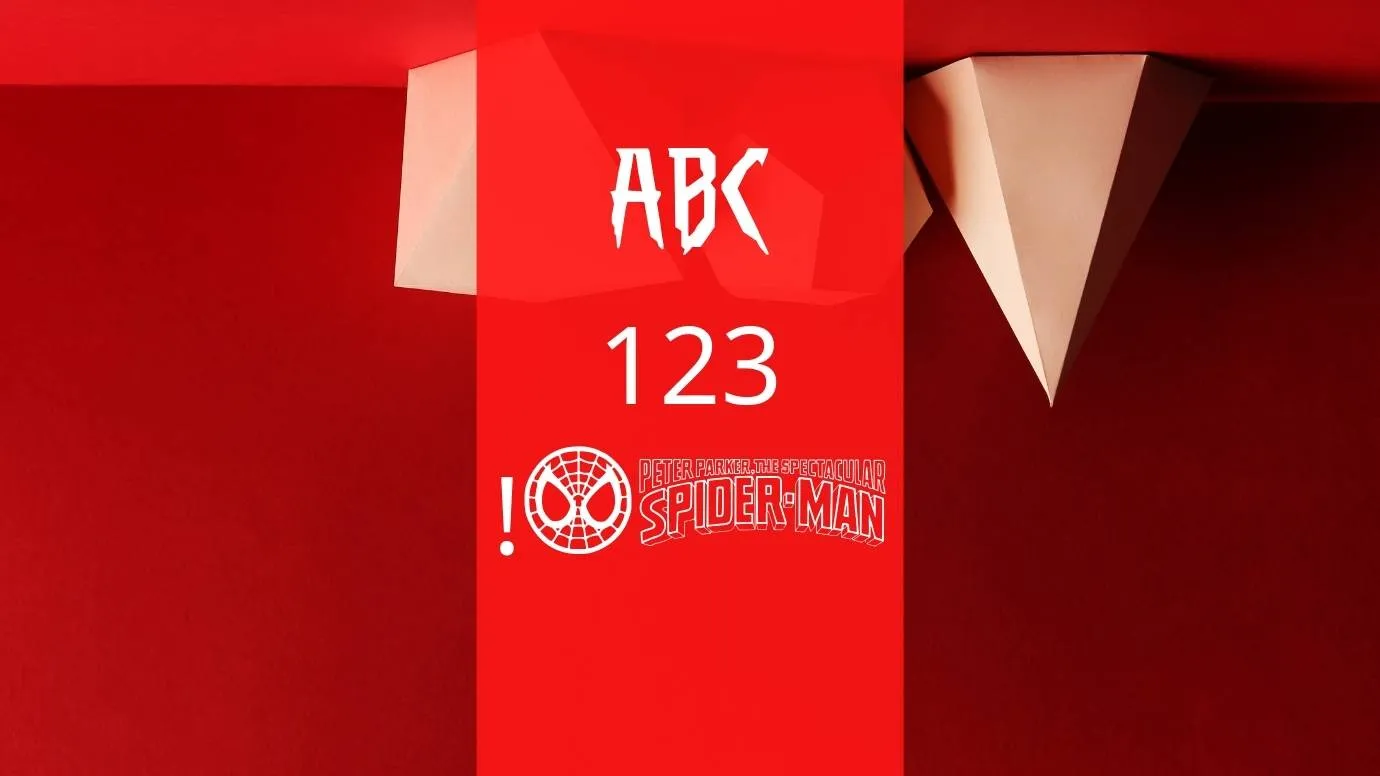
The Amazing Spider-Man Font is a group member of the fancy typeface family, the style of this texture is comic. This is a typeface that was originally created for the Amazing Spider-Man comic book. The font has been used in various other media, including video games, movies, and TV shows.
This typeface is a custom typeface that was designed by Marvel Comics artist SpideRaYsfoNtS. The font is based on the hand-lettering that is used in the comics.
The font has a high level of detail and includes various unique features, including flared ascenders and descenders, and ornate capitals. The font is available in a regular weight.
It is a popular choice for comic book-themed designs and is often used in logos, titles, and other graphic elements. A similar font of this typeface is Questrial Font.
This typeface is commonly used in comic book-themed designs, but can also be used in a range of other projects. Some potential uses include:
- Logo designs
- Titles and headings
- Product packaging
- Web graphics
- T-shirt designs
Designer of The Amazing Spider-Man Font
This unique style of texture is designed by one of the famous designers which are known, SpideRaYsfoNtS.
This typeface is released in a regular style of font, this regular style of font consists of glyphs, digits, capital letters, small letters, punctuation, a set of characters, and a wide number of languages supports.
What type of font is The Amazing Spider-Man Font?
This typeface is a group member of the fancy typeface family, the style of this texture is comic. This is a typeface that was originally created for the Amazing Spider-Man comic book
Who created The Amazing Spider-Man Font?
This unique style of texture is designed by one of the famous designers which is known, SpideRaYsfoNtS.